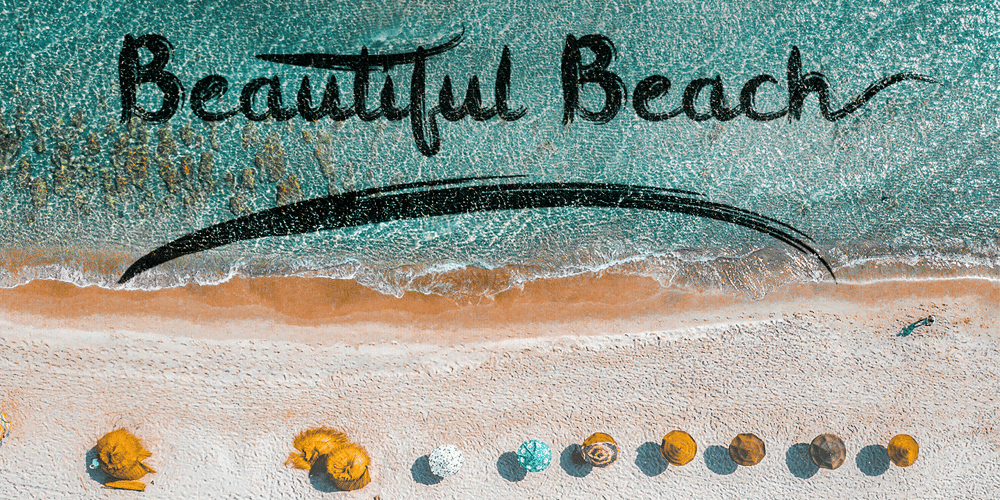
Contania
Contania font
Contania Font Family was designed by Marwah and published by BBA Key. Contania contains 2 styles and family package options. Contania Script is a new fresh and modern style with handmade calligraphy, decorative characters and dancing lineage! So wonderful are invitations like greeting cards, branding material, business cards, quotes, posters, and more. Contania Script comes with 608 glyphs. Alternate characters are divided into several Open Type features such as Swash, Stylistic Sets, Stylistic Alternate, Contextual Alternate. Open Type features are accessible by using Open Type savvy programs such as Adobe Illustrator, Adobe InDesign, Adobe Photoshop Corel Draw X versions, and Microsoft Word. And this font has code PUA unicode (font with special code). So that all alternative characters can be easily accessed by craftsmen or designers.